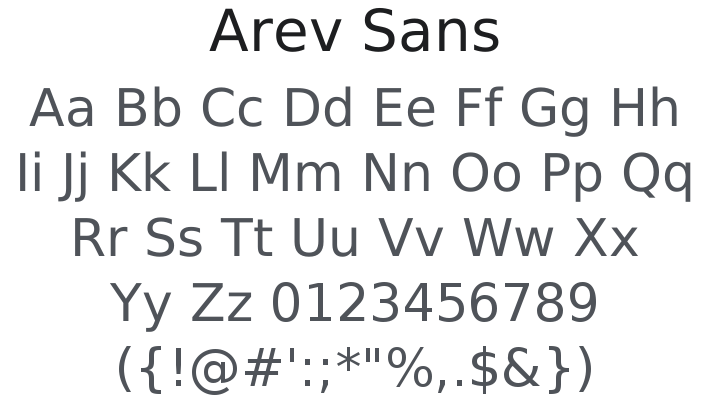
Arev Sans Font Family
by Tavmjong Bah
About Arev Sans
The "Arev" set of fonts adds Greek, Cyrillic, Latin-A, Latin-B, Latin-Extended, IPA, Combining Diacritical Marks, Dingbats, and Symbol characters to Bitstream's Vera fonts. The motivation for this work is to provide a set of matching characters for equations. I have added some additional characters that may or may not make this font useful for written Greek and Cyrillic (I don't read Greek or a language that uses Cyrillic). Quite a few math characters have been added. The Vera partialdiff, infinity, and integral have been replaced by glyphs that better match the Vera style (the original glyphs seem to have been copied directy from Bitstream's Cyberbit font and not designed for Vera).